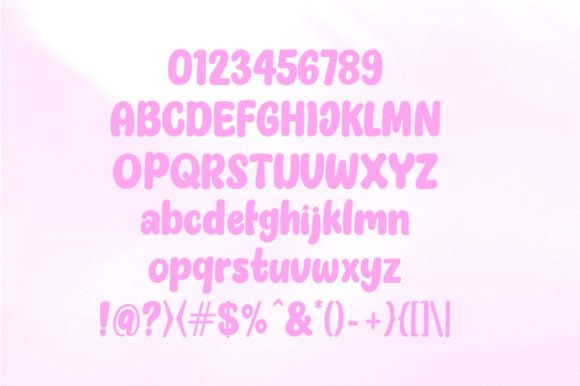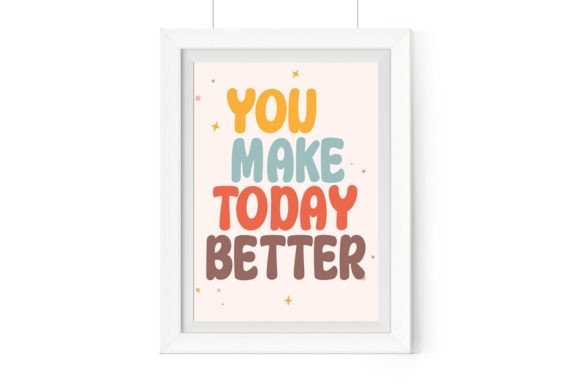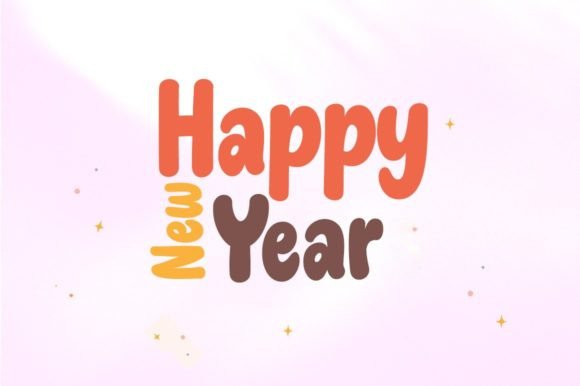
Bebilon Font: The Perfect Choice for Children’s Party Designs
Are you a designer or crafter looking for a font that’s both fun and festive? Look no further than the Bebilon Font! Originally designed for a little boy’s birthday party, this smooth and bold font is perfect for creating eye-catching designs for children’s parties. In this article, we’ll take a closer look at the Bebilon Font and explore its many uses for birthday banners, posters, invitations, flyers, and more.
The Origin of Bebilon Font
The Bebilon Font was created with a specific purpose in mind – to make a little boy’s birthday party special. The font’s designer wanted to create a unique and playful font that would capture the excitement and joy of a child’s birthday celebration. And so, Bebilon was born! This original font has since become a popular choice among designers and crafters who want to add a touch of whimsy and fun to their designs.
Characteristics of Bebilon Font
So, what makes the Bebilon Font so special? Here are a few of its key characteristics:
- Smooth and Bold: The Bebilon Font is smooth and bold, making it perfect for creating eye-catching designs that will grab attention.
- Playful and Fun: This font has a playful and fun feel to it, making it ideal for children’s party designs.
- Versatile: The Bebilon Font can be used for a wide range of design projects, from birthday banners and posters to invitations and flyers.
Uses for Bebilon Font
The Bebilon Font is a versatile font that can be used for a wide range of design projects. Here are a few ideas to get you started:
- Birthday Banners: Create a custom birthday banner with the Bebilon Font that’s sure to make any child’s birthday special.
- Posters: Design a colorful poster with the Bebilon Font that’s perfect for promoting a children’s event or party.
- Invitations: Create custom invitations with the Bebilon Font that will set the tone for a fun and festive party.
- Flyers: Design eye-catching flyers with the Bebilon Font that will grab attention and get the word out about a children’s event.
Why Designers and Crafters Love Bebilon Font
So, why do designers and crafters love the Bebilon Font? Here are a few reasons:
- Easy to Read: The Bebilon Font is easy to read, even at small sizes, making it perfect for designs that require a lot of text.
- Highly Versatile: This font can be used for a wide range of design projects, from digital designs to print projects.
- Unique and Playful: The Bebilon Font has a unique and playful feel to it, making it perfect for designers and crafters who want to add a touch of whimsy to their designs.
Tips for Using Bebilon Font
Here are a few tips for using the Bebilon Font in your designs:
- Use it with Bright Colors: The Bebilon Font looks great with bright, bold colors, so don’t be afraid to get creative with your color palette.
- Experiment with Different Sizes: The Bebilon Font can be used at a variety of sizes, from small to large, so experiment with different sizes to see what works best for your design.
- Pair it with Other Fonts: The Bebilon Font can be paired with other fonts to create a unique and interesting design.
In conclusion, the Bebilon Font is a fun and festive font that’s perfect for children’s party designs. Its smooth and bold characteristics make it easy to read and highly versatile, and its playful feel makes it a great choice for designers and crafters who want to add a touch of whimsy to their designs. Whether you’re creating birthday banners, posters, invitations, or flyers, the Bebilon Font is a great choice. So why not give it a try and see what amazing designs you can create?